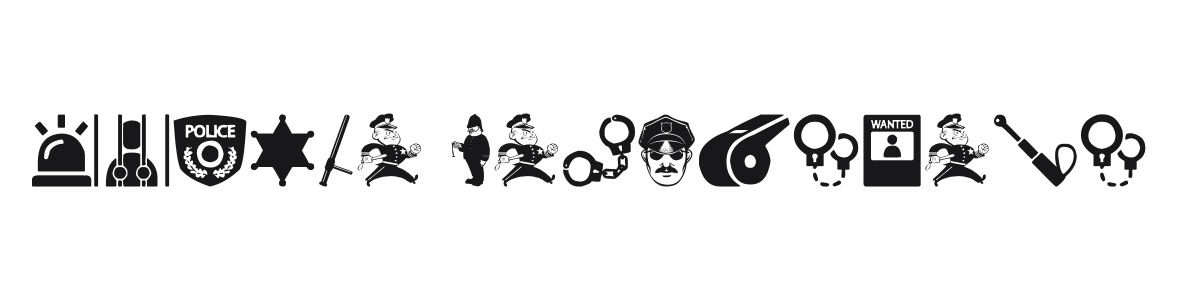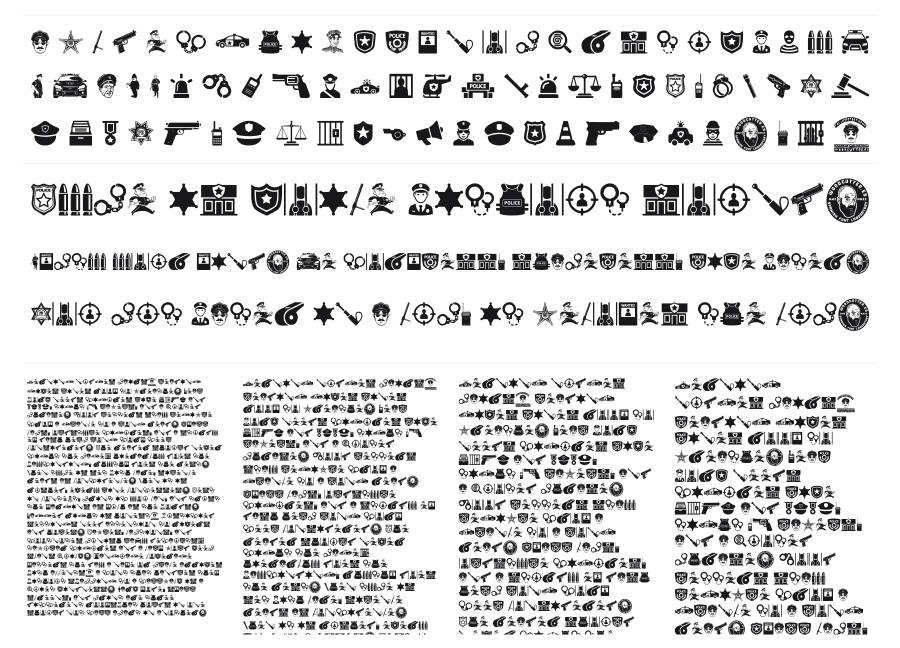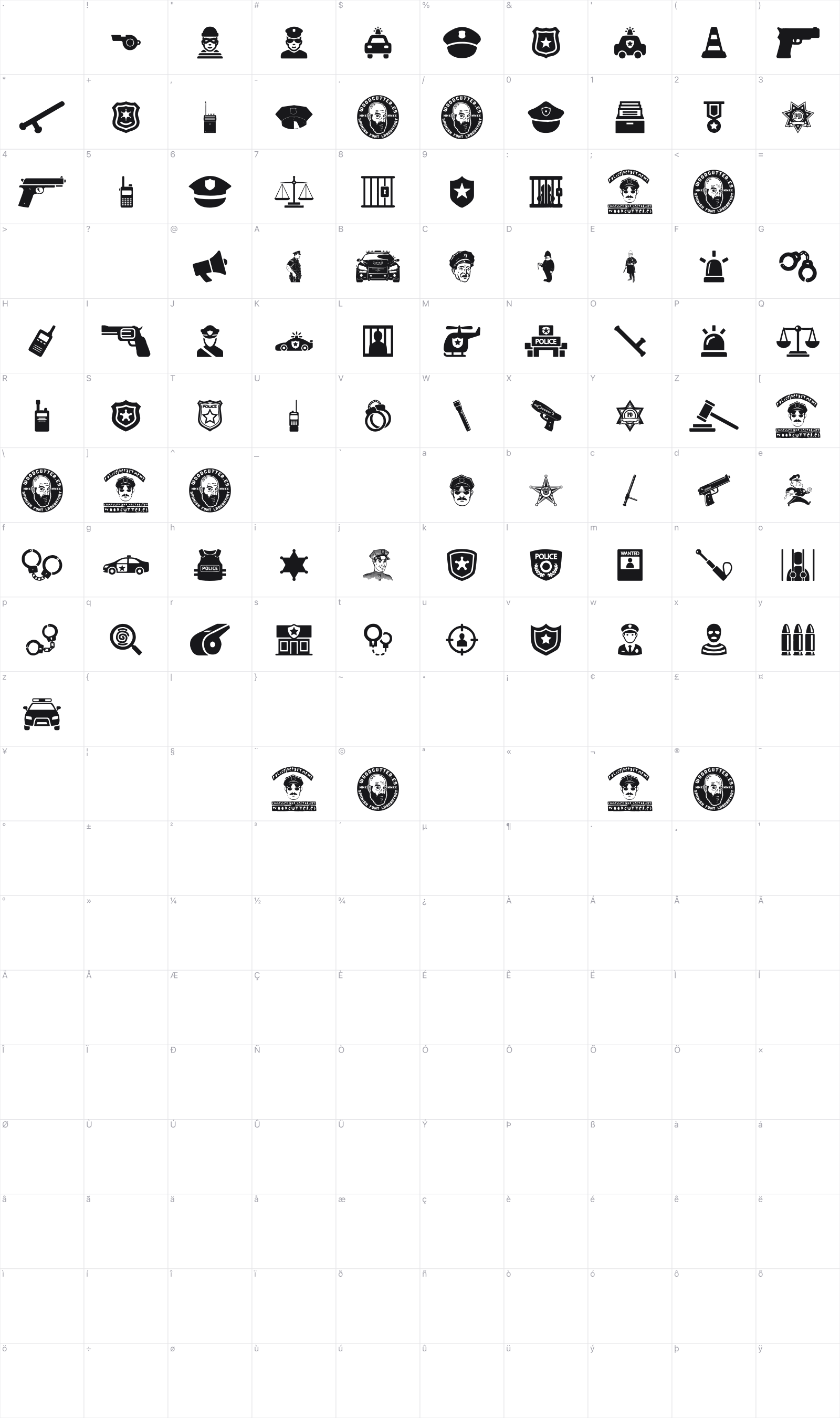
Police Department
Police Department is a dingbat icon font by Woodcutter featuring bold, solid silhouette symbols drawn from the world of law enforcement. Badges, patrol cars, handcuffs, officers, and police stations are all rendered as clean black pictograms with consistent visual weight. The set works naturally for editorial illustration, game UI, infographics, or any project that needs a ready-made police iconography kit.